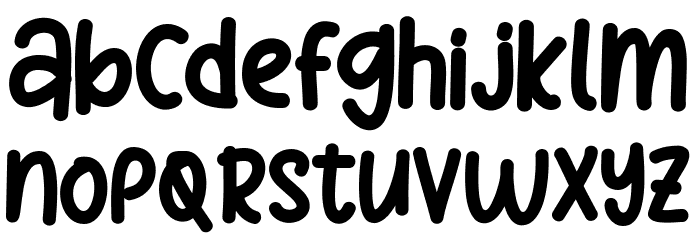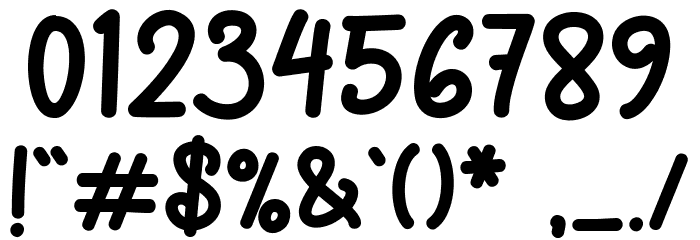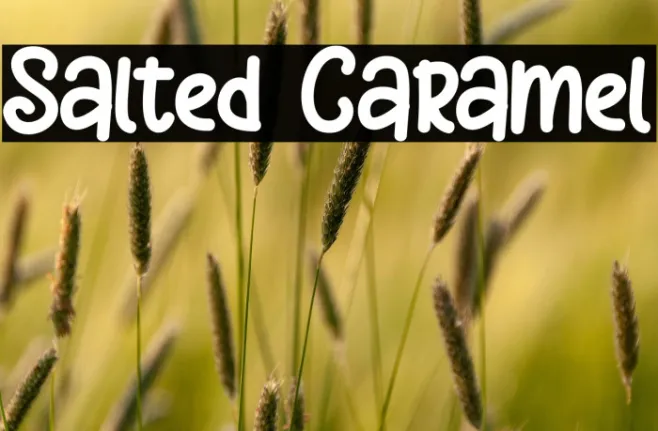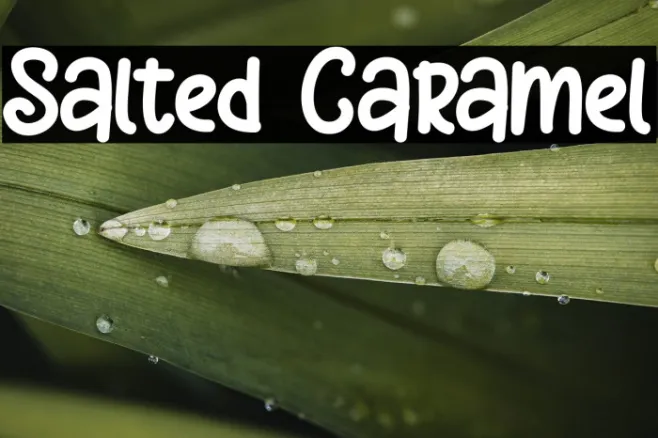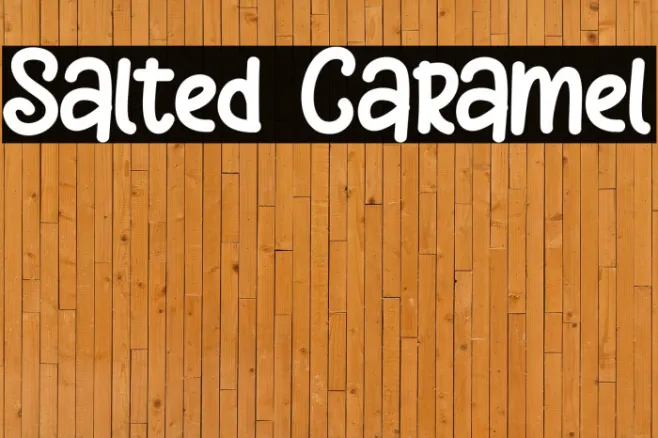
Salted Caramel Font
This playful and rounded font exudes a friendly and approachable vibe. Its bold, smooth curves and consistent stroke width make it highly legible and visually appealing. The characters are slightly condensed, adding a touch of modernity while maintaining a casual, handwritten feel. The font's uniformity in stroke thickness provides a balanced look, making it suitable for various design applications. Its whimsical style is perfect for projects that require a touch of fun and creativity, such as children's books, playful branding, or casual invitations.
A playful, rounded font with bold, smooth curves and a casual, handwritten feel.
- Proposed Projects: Ideal for children's books, playful branding, casual invitations, and creative projects.
- Overall Style: Playful
- Use Case: Headlines, Logos, Invitations